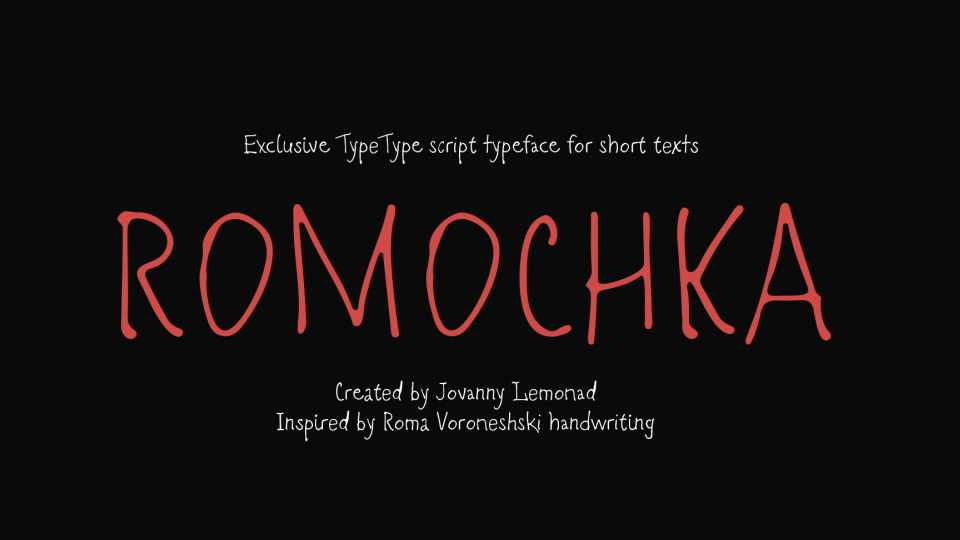
Download Romochka font, a casual handwritten typeface with a cheerful name. The small size of the text is ideal for recording your thoughts and sharing them with your audience.
Designer: Ivan Gladkikh